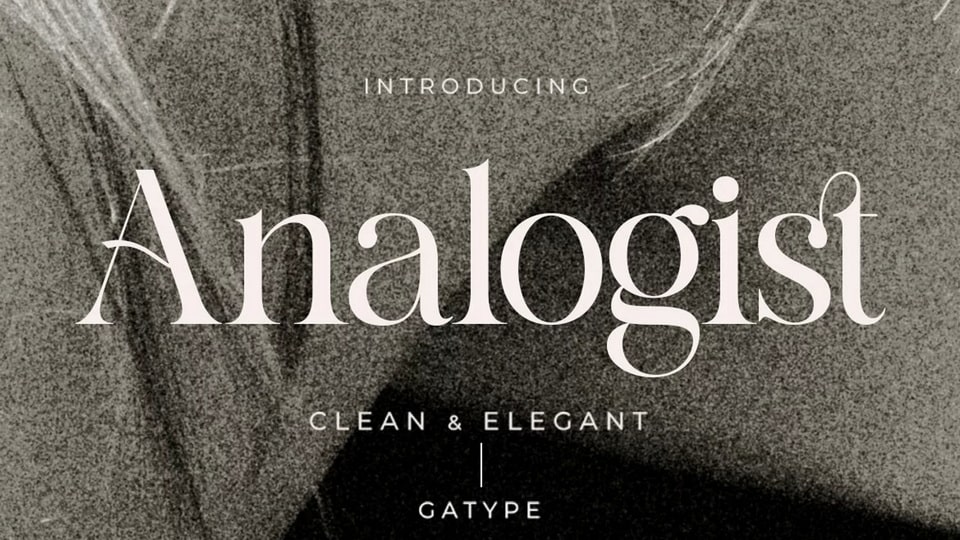
Download Analogist font, a modern display typeface with a unique look. This customizable font will look great on a variety of design ideas such as branding styles and editorial use.